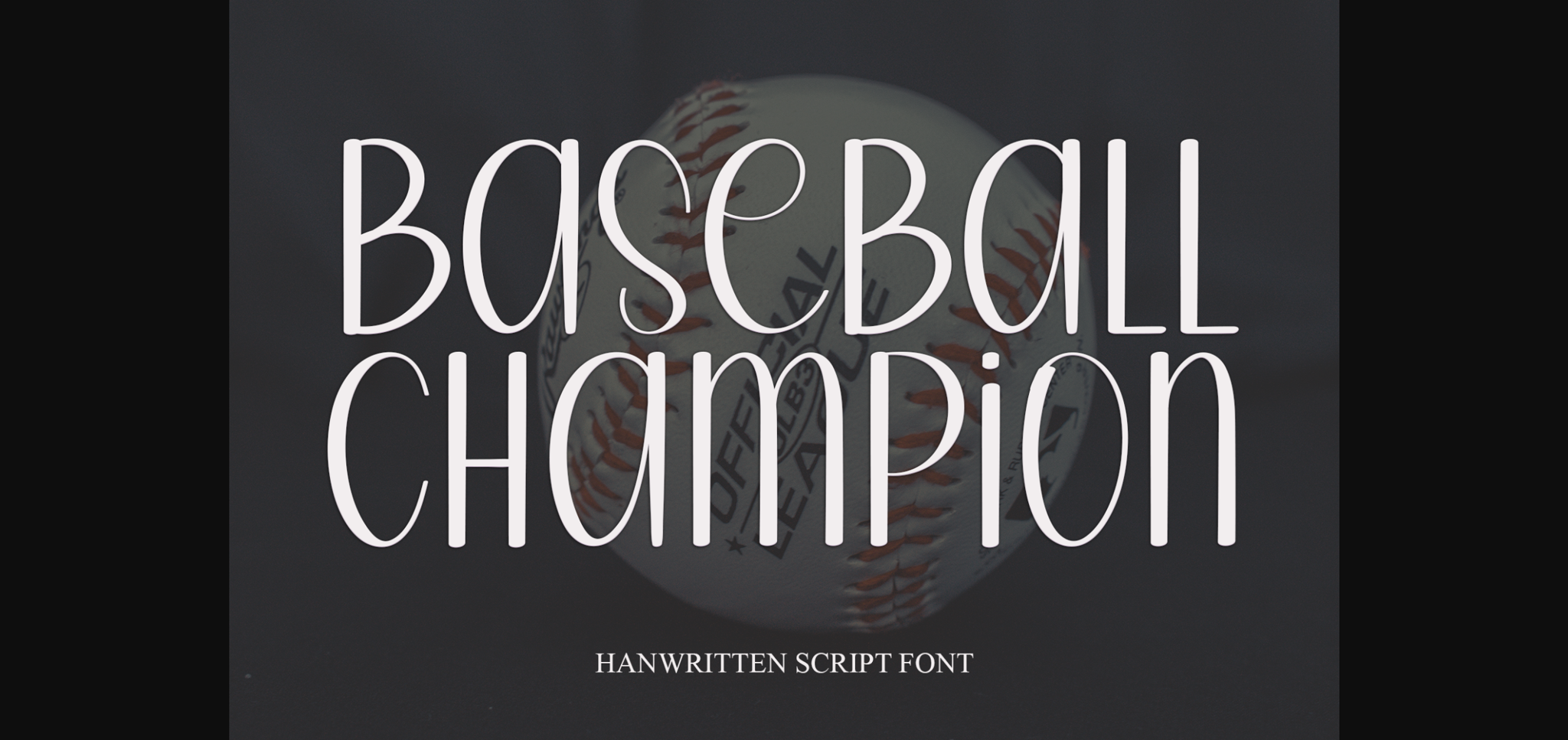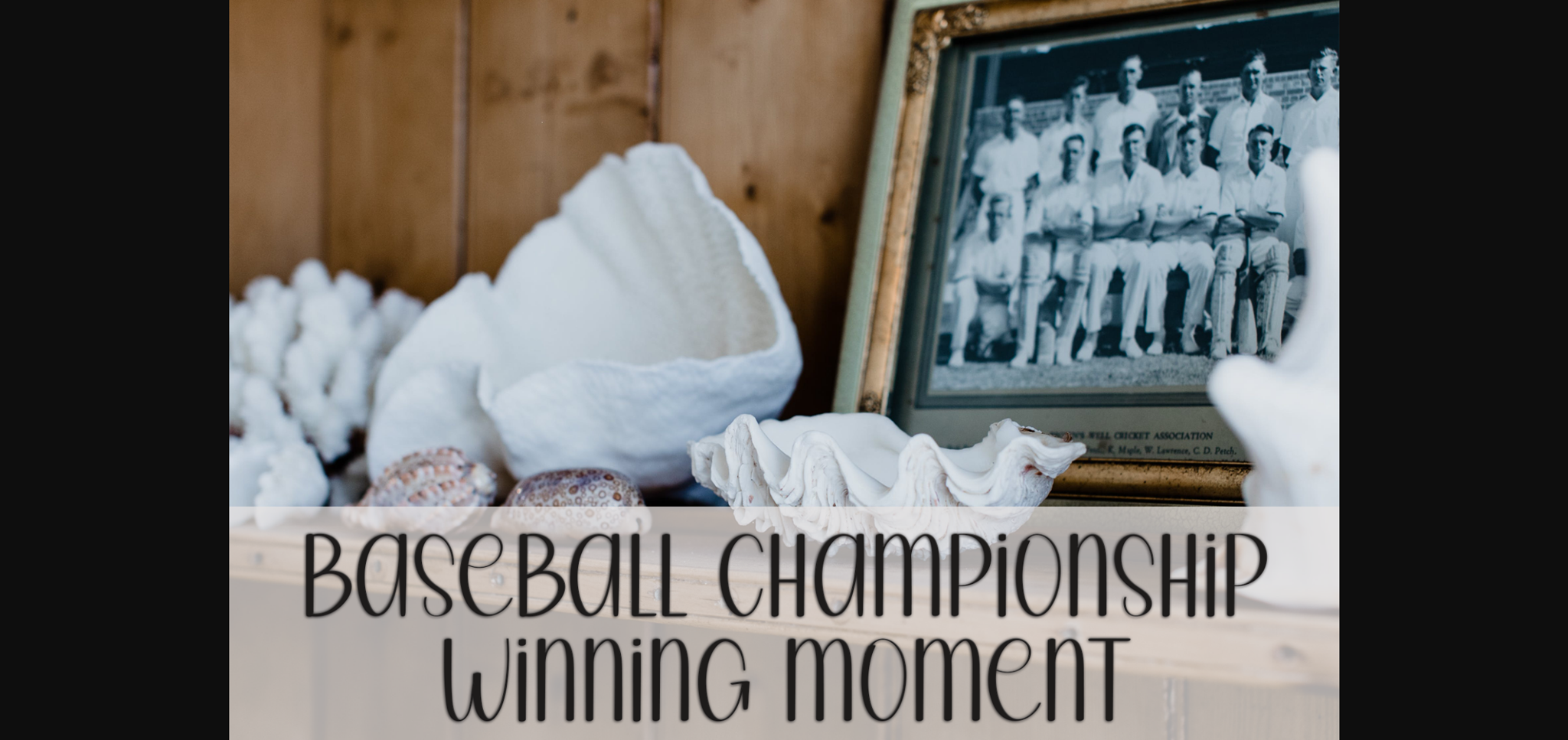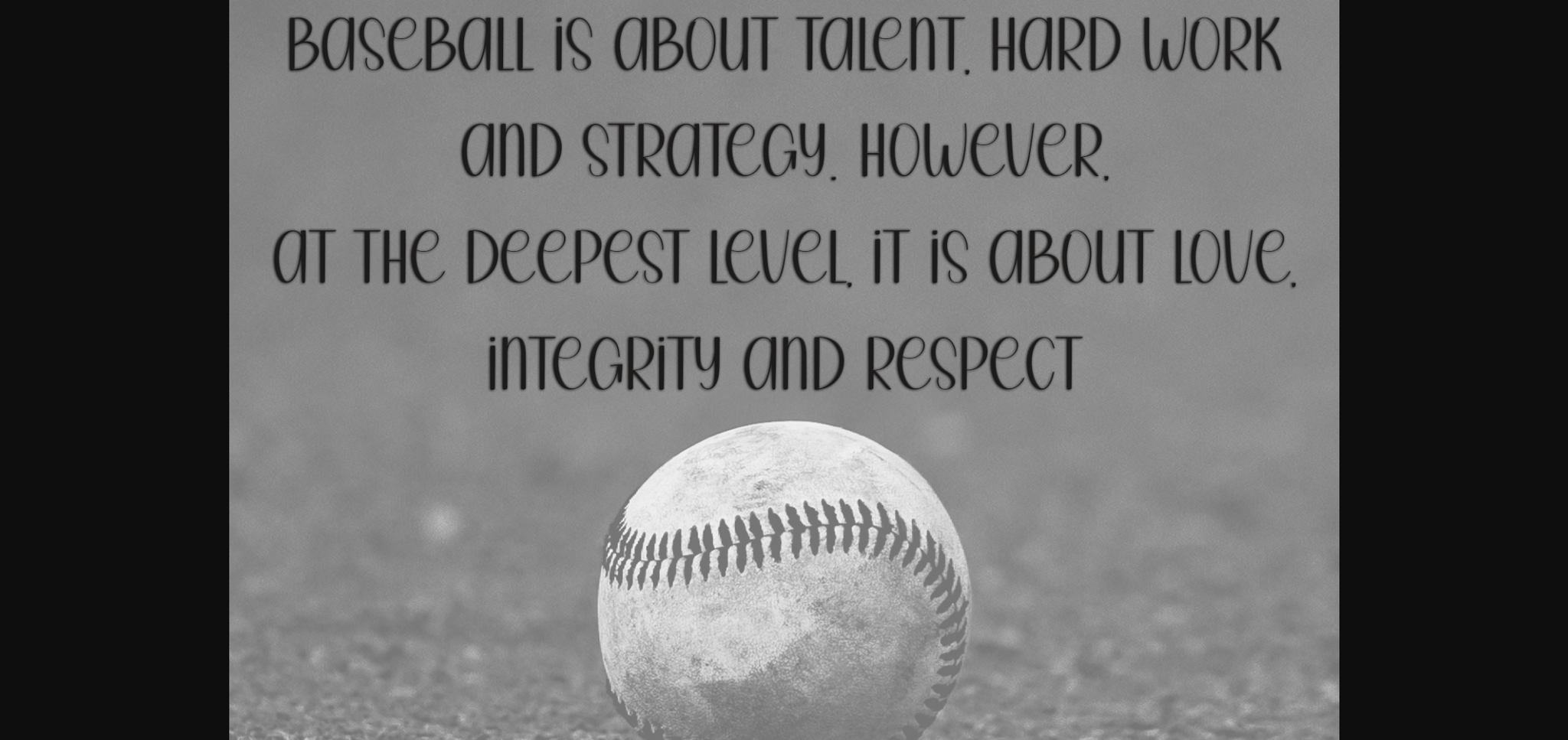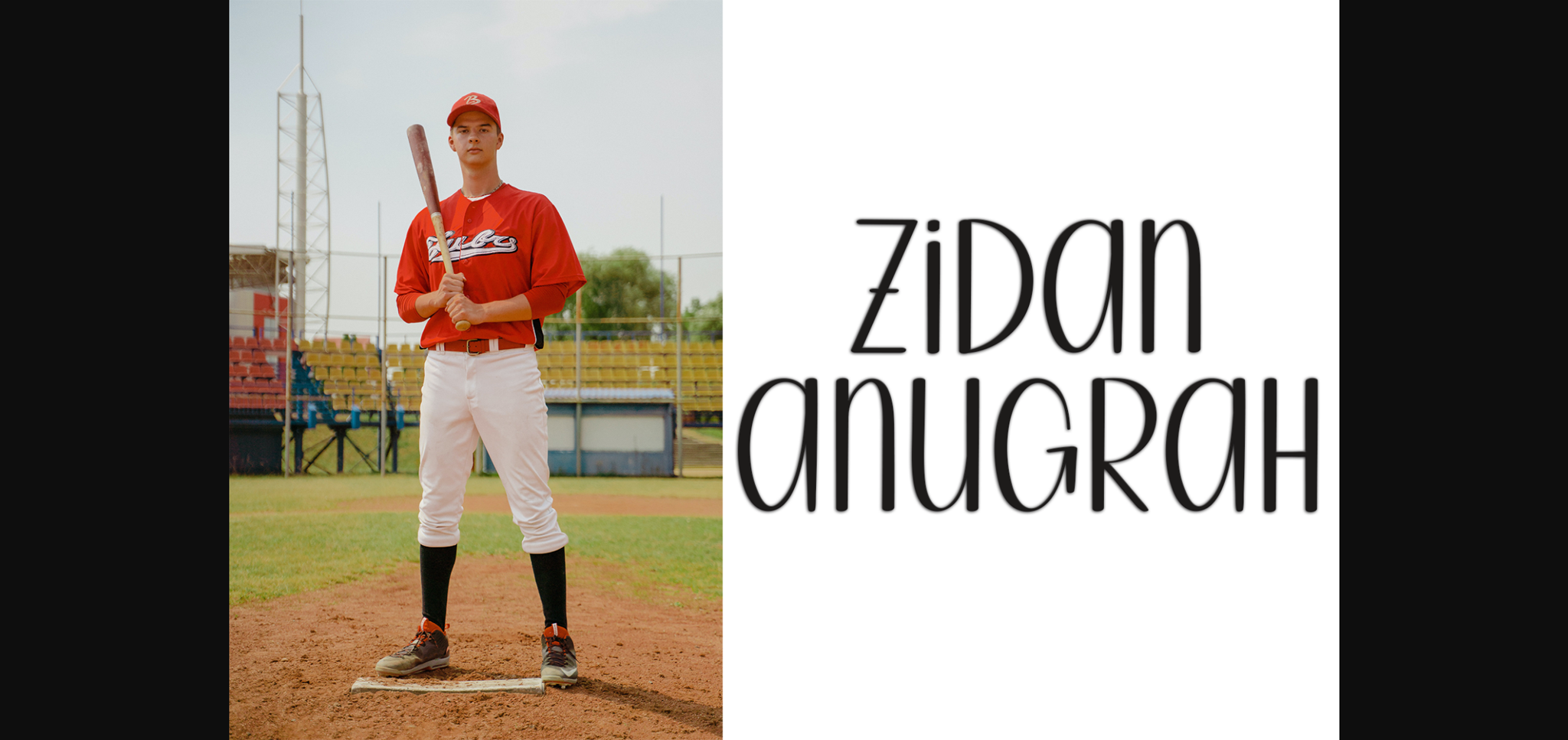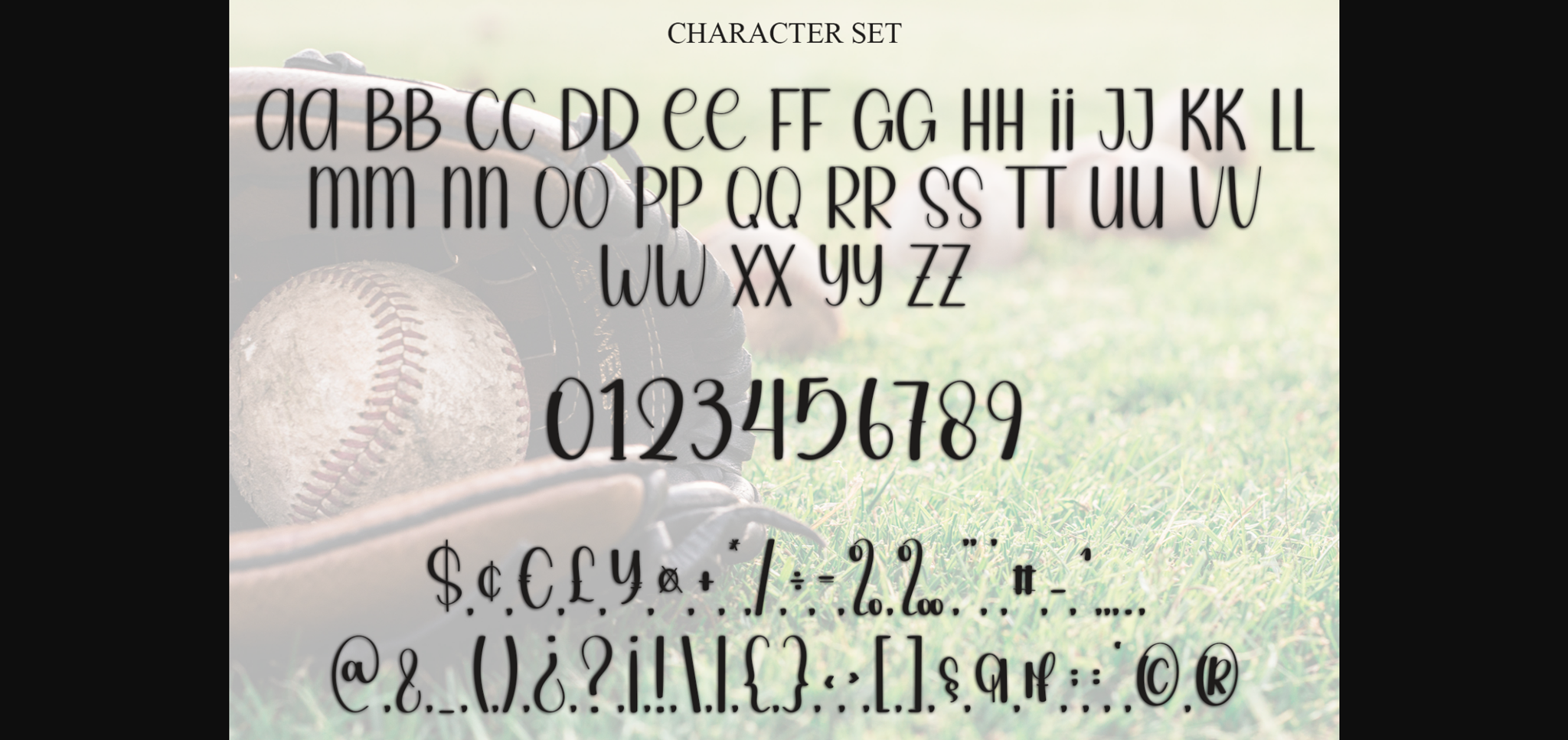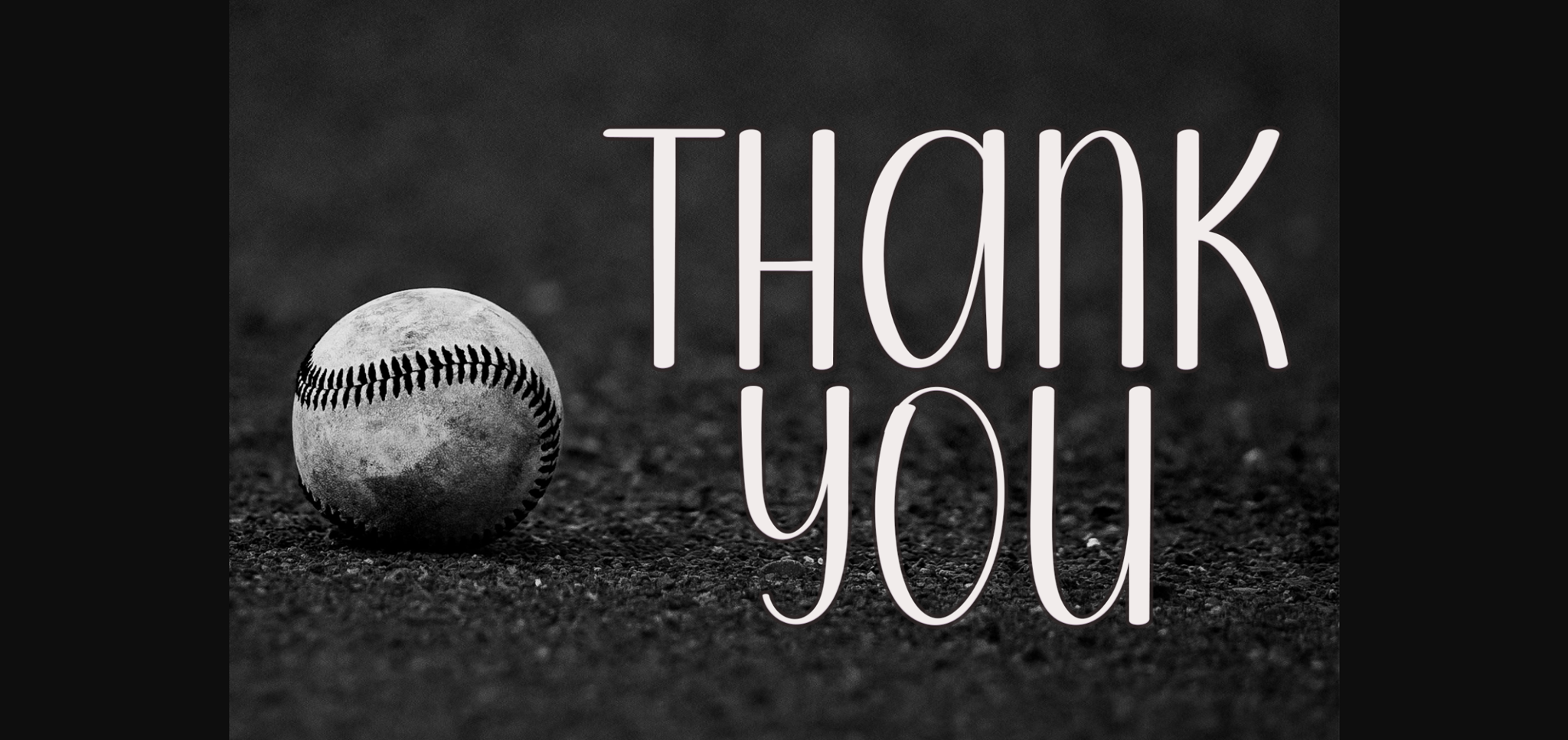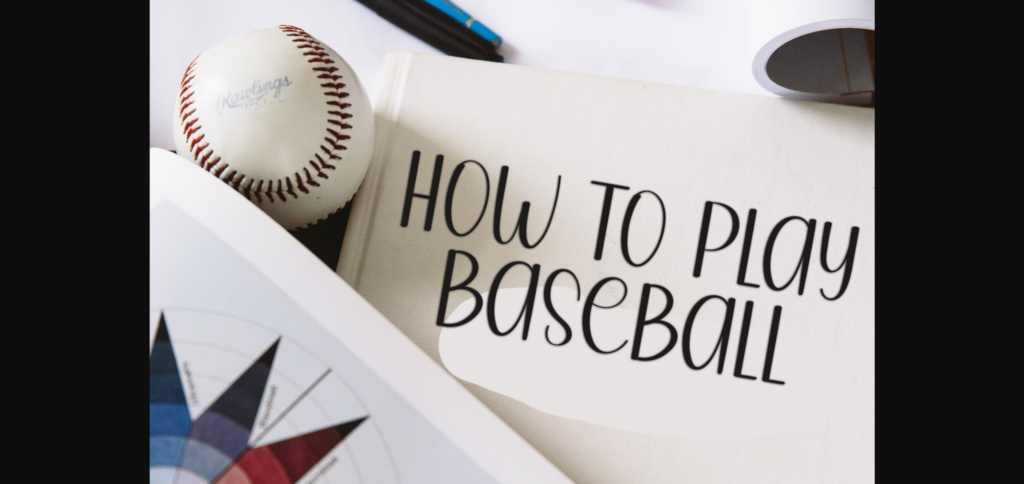
Baseball Champion Font
About Baseball Champion Font
Baseball Champion is a simple and casual sans-serif font with an undeniably clean feel. With its neat and beautiful arrangement of letters, this typeface will look outstanding in both formal and non-formal designs.